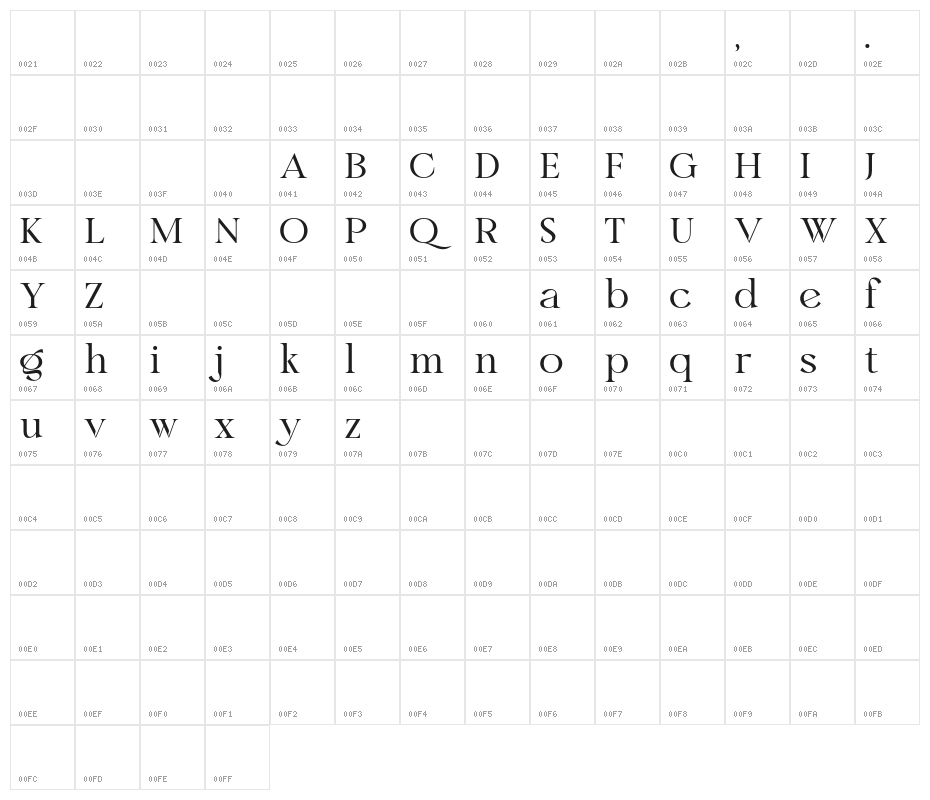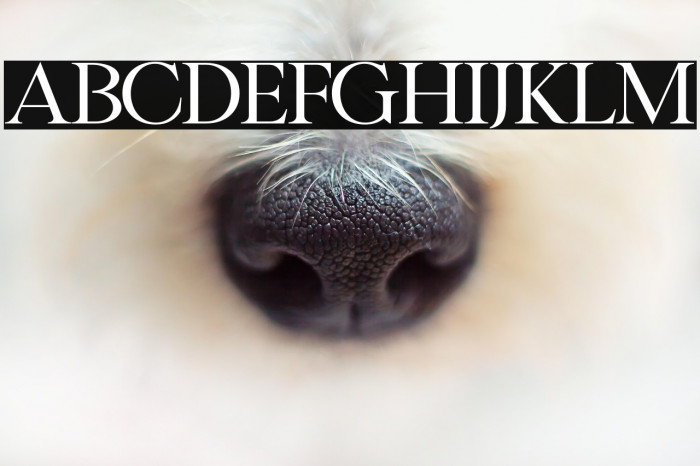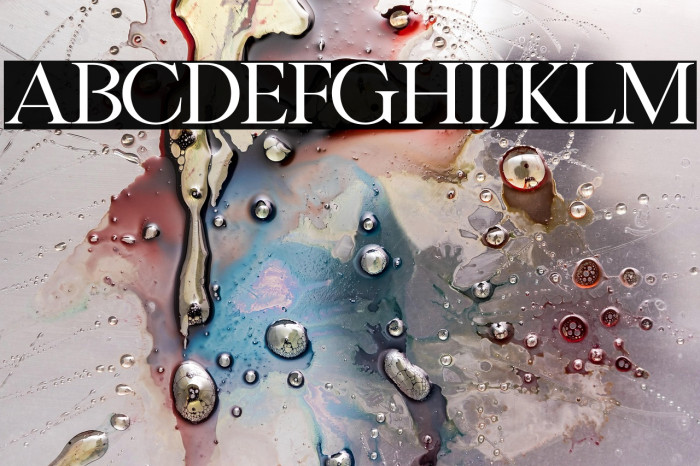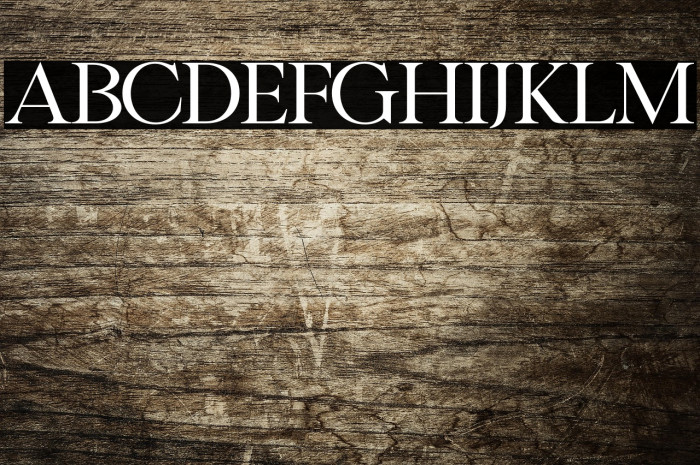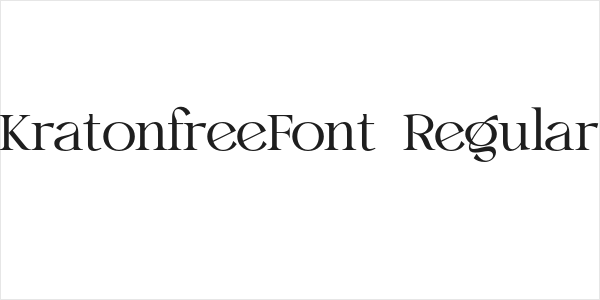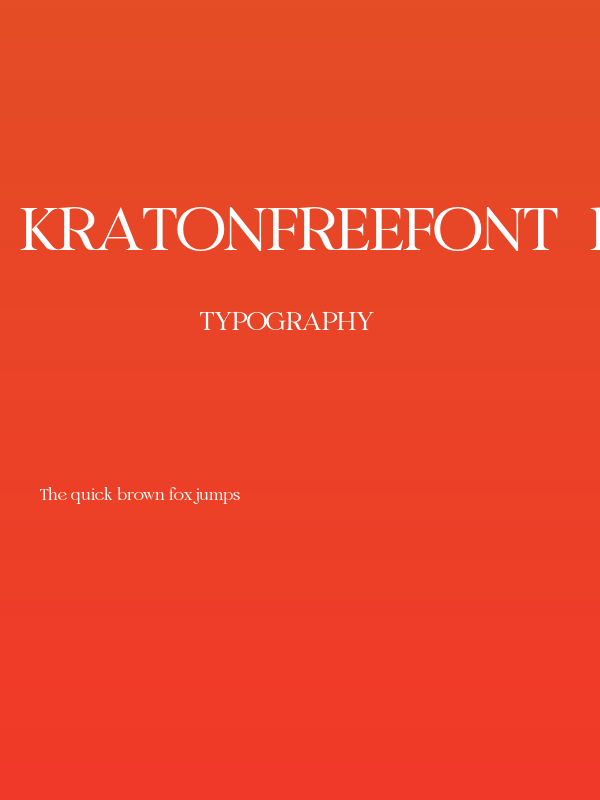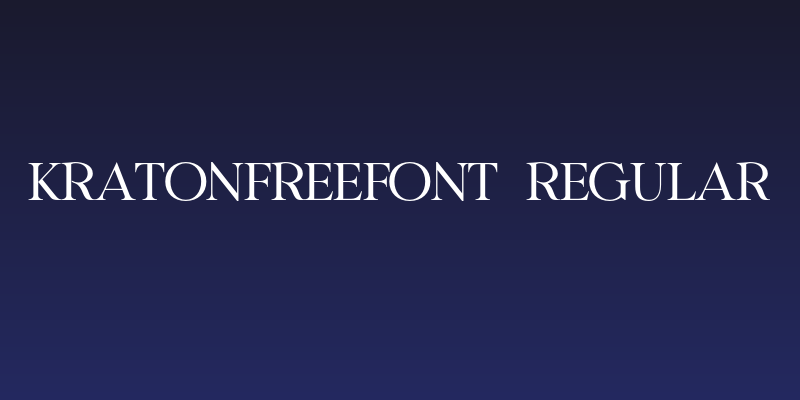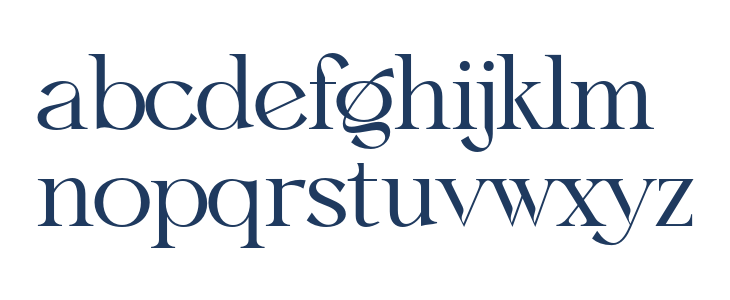
KratonfreeFont-Regular Font
KratonfreeFont-Regular Description
This font features a classic serif style with elegant and refined strokes. The uppercase letters exhibit a strong presence with sharp serifs and a balanced weight distribution, giving them a formal and sophisticated appearance. The lowercase letters maintain a consistent style, with smooth curves and a slightly narrower form, enhancing readability. The numerals are designed to complement the letterforms, maintaining the same level of elegance and clarity. The special characters are crafted with attention to detail, ensuring they blend seamlessly with the rest of the typeface. Overall, this font exudes a timeless quality, suitable for a variety of design applications.
Overall StyleClassic
Proposed ProjectsIdeal for editorial design, book covers, formal invitations, and branding projects that require a touch of sophistication.